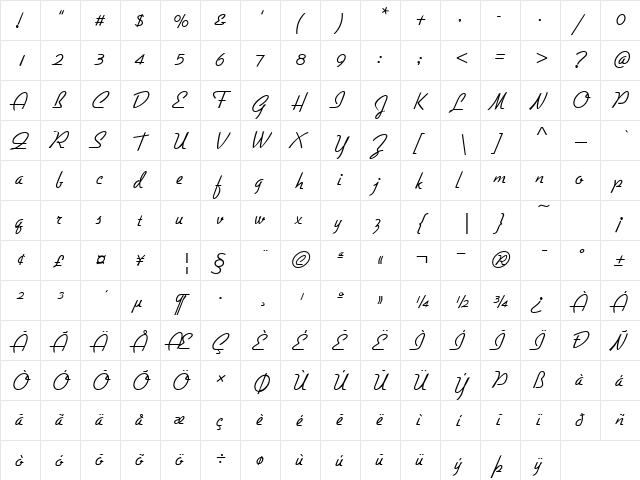
GilliamScript Regular Font Preview
GilliamScript Regular
Design Context for GilliamScript Typeface
GilliamScript flows with the natural rhythm of handwritten lettering, making it ideal for designs that call for warmth and personal expression.
Font Pairing: Combine GilliamScript with a simple geometric sans for maximum contrast — the tension between flowing curves and clean structure is a classic typographic pairing.
Pro Tip: Use GilliamScript for short runs of text — names, titles, or taglines. Extended body copy in script faces tires the eye quickly.